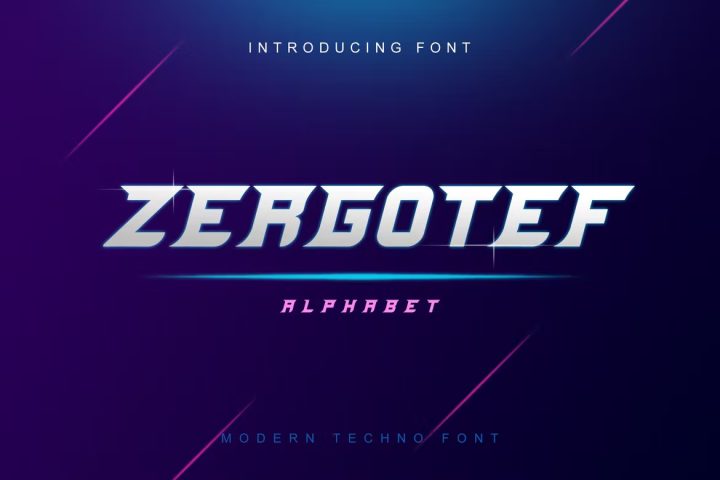
Zergotef Font
Introducing our new product Zergotef Font – Modern Font
Zergotef Font – Modern Font is a bold and authentic display font. The font is suitable for any branding project like logo, t-shirt printing, esport, and many more. outstanding in a wide range of contexts.